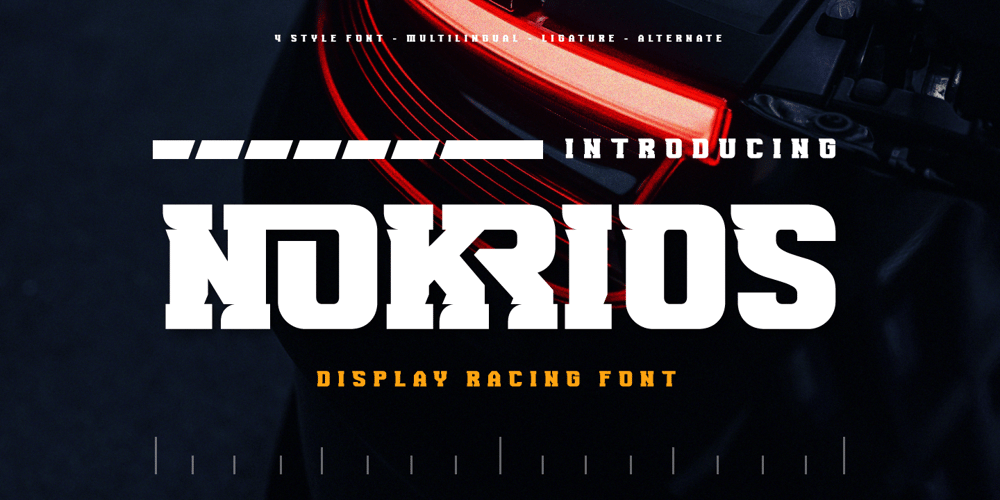
Nokrios Font Family was designed by Rozikan and published by Twinletter. Nokrios contains 4 styles and family package options. Nokrios is a font specifically inspired by the sport of racing. adopts the speed and power it tries to fully reflect to make a bold statement that stands out. We designed it to be a heavy-duty, functional add-on option for big, bold titles or small add-on types. This font features two different font options and two italic options.This font is perfect for adding punch to your projects without losing readability or impact at small sizes.What’s Included :- File font- All glyphs Iso Latin 1- Alternate, Ligature- Simple installations- We highly recommend using a program that supports OpenType features and Glyphs panels like many Adobe apps and Corel Draw, so you can see and access all Glyph variations.- PUA Encoded Characters – Fully accessible without additional design software.- Fonts include Multilingual support